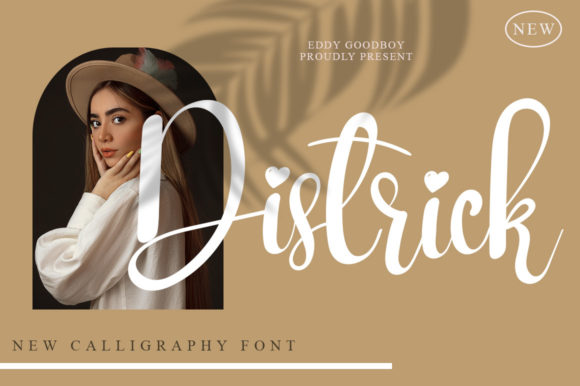
Step into the world of Districk, a captivating script font family that will enchant your designs with its romantic and sweet calligraphy. Watch as the characters dance gracefully along the baseline, adding a touch of luxury and elegance to every project you create.
With Districk, you'll have the power to craft breathtaking wedding vows, heartfelt invitations, and love letters that ignite passion. This font is more than just a collection of letters; it's an expression of your emotions, a whisper of your heart's desires. Each stroke and curve is a testament to the beauty of love, the joy of shared moments, and the promise of forever.
Districk is not just another font; it's a work of art, meticulously crafted by the talented Eddygoodboy. Its PUA encoding makes it a breeze to access the full range of amazing glyphs and ligatures, empowering you to add intricate details and flourishes to your designs. With Districk, your creativity knows no bounds.
Whether you're a seasoned designer or just starting your journey, Districk will be your trusted companion. Its versatility knows no limits, allowing you to create stunning logos, eye-catching branding, and social media posts that leave a lasting impression. It's the perfect choice for wedding invitations, greeting cards, posters, and any project that calls for a touch of romance and elegance.
With Districk, you'll never run out of inspiration. Its charming and playful nature will spark your imagination, igniting a creative fire within you. Say goodbye to bland and ordinary designs and embrace the beauty of Districk, where every word becomes a work of art.
Don't settle for ordinary fonts that blend into the background. Choose Districk, the font that dances with your words, capturing the essence of your message and leaving a trail of elegance wherever it goes.
Districk is more than just a font; it's an experience. It's the sound of laughter, the taste of champagne, and the feeling of butterflies in your stomach. It's the embodiment of love, joy, and all the beautiful emotions that make life worth living.
So, dive into the world of Districk and let your designs bloom with romance, sweetness, and sophistication. With this enchanting font family by your side, you'll create masterpieces that touch hearts and leave a lasting impression.